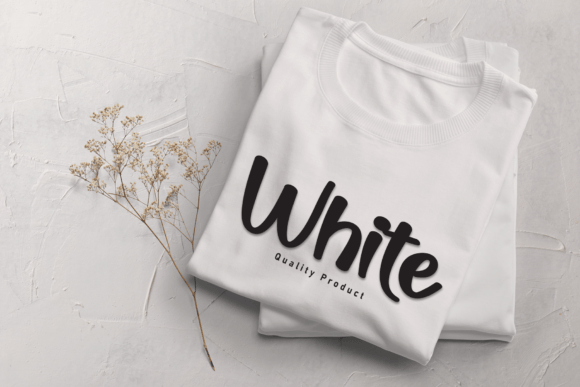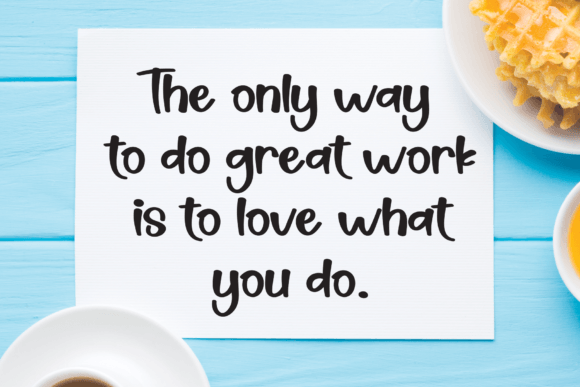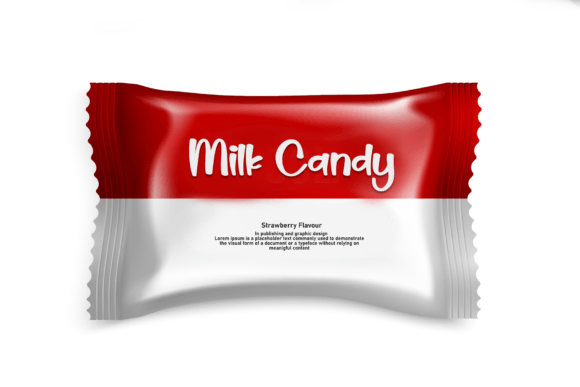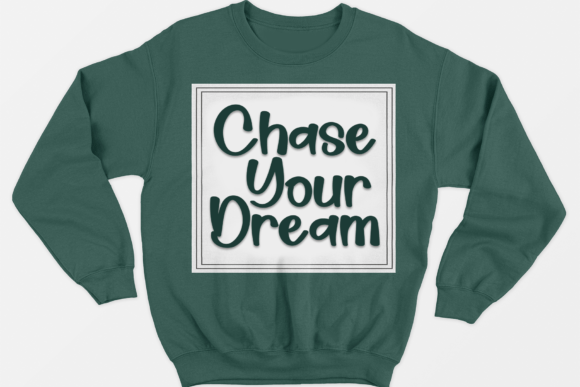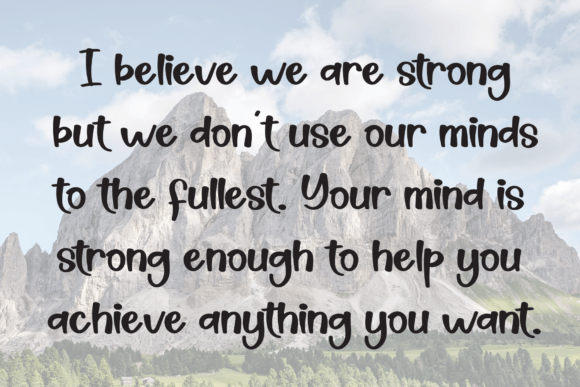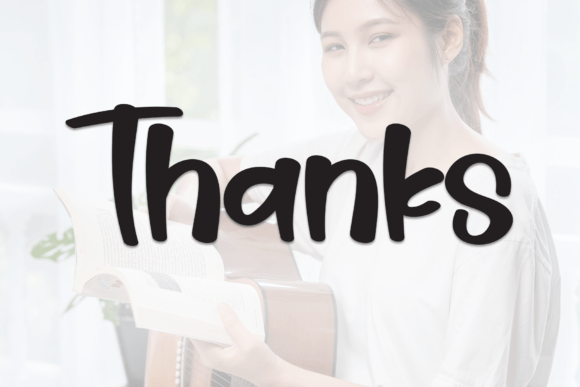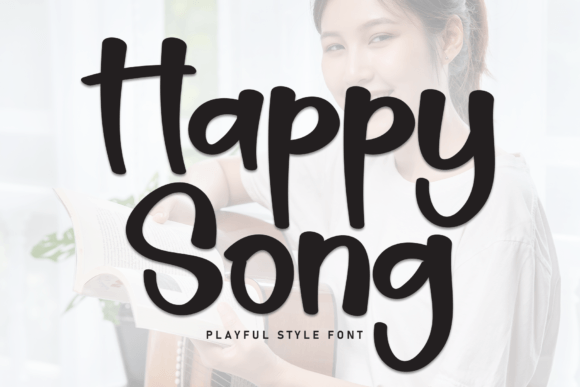
Introducing Happy Song Font: The Sweet and Friendly Handwritten Font for Your Creative Projects
Are you a designer, crafter, or DIY enthusiast looking for a font that can add a personal touch to your creative projects? Look no further than Happy Song Font, a sweet and friendly handwritten font that’s perfect for a wide range of designs. With its natural and unique style, Happy Song Font is incredibly versatile and can be used for various projects, from greeting cards and invitations to branding and advertising materials.
The Characteristics of Happy Song Font
Happy Song Font is a handwritten font that’s designed to evoke a sense of warmth and friendliness. Its natural and unique style makes it stand out from more traditional fonts, and its sweetness and charm can add a personal touch to any design. The font’s characteristics include:
- Handwritten style: Happy Song Font is a handwritten font that’s designed to look like it was written with a pen or pencil. This gives it a personal and human touch that’s perfect for designs that require a more personal approach.
- Sweet and friendly: The font’s sweet and friendly style makes it perfect for designs that require a positive and uplifting tone. Whether you’re creating a greeting card or an advertisement, Happy Song Font can help you convey a sense of warmth and approachability.
- Natural and unique: Happy Song Font has a natural and unique style that sets it apart from more traditional fonts. Its irregularities and imperfections give it a human touch that’s perfect for designs that require a more personal approach.
The Benefits of Using Happy Song Font
There are many benefits to using Happy Song Font for your creative projects. Here are just a few:
- Versatility: Happy Song Font is incredibly versatile and can be used for a wide range of designs, from greeting cards and invitations to branding and advertising materials.
- Personal touch: The font’s handwritten style and sweet and friendly tone can add a personal touch to any design, making it perfect for projects that require a more personal approach.
- Easy to read: Despite its handwritten style, Happy Song Font is easy to read and can be used for both headings and body text.
- Unique style: Happy Song Font has a unique style that sets it apart from more traditional fonts. Its natural and irregular style can add a touch of personality to any design.
How to Use Happy Song Font
- Pair it with other fonts: Happy Song Font can be paired with other fonts to create a unique and interesting design. Try pairing it with a sans-serif font for a modern look or a serif font for a more traditional look.
- Use it for headings and body text: Happy Song Font can be used for both headings and body text. Use it for headings to add a personal touch and for body text to create a more informal and friendly tone.
- Experiment with colors and textures: Happy Song Font can be used with a variety of colors and textures to create a unique and interesting design. Try using it with bright colors and fun textures to add a playful touch to your design.
Design Ideas Using Happy Song Font
Happy Song Font is incredibly versatile and can be used for a wide range of designs. Here are a few ideas to get you started:
- Greeting cards: Happy Song Font is perfect for greeting cards, whether you’re creating a birthday card, a wedding card, or a holiday card.
- Invitations: The font’s sweet and friendly style makes it perfect for invitations, whether you’re inviting guests to a party, a wedding, or a baby shower.
- Branding and advertising: Happy Song Font can be used for branding and advertising materials, such as logos, brochures, and flyers.
- DIY projects: The font’s handmade style makes it perfect for DIY projects, such as scrapbooking, journaling, and crafting.
In conclusion, Happy Song Font is a sweet and friendly handwritten font that’s perfect for designers, crafters, and DIY enthusiasts. Its natural and unique style makes it incredibly versatile and can be used for a wide range of designs. Whether you’re creating a greeting card, an invitation, or a branding material, Happy Song Font can add a personal touch and a sense of warmth and friendliness to your design.